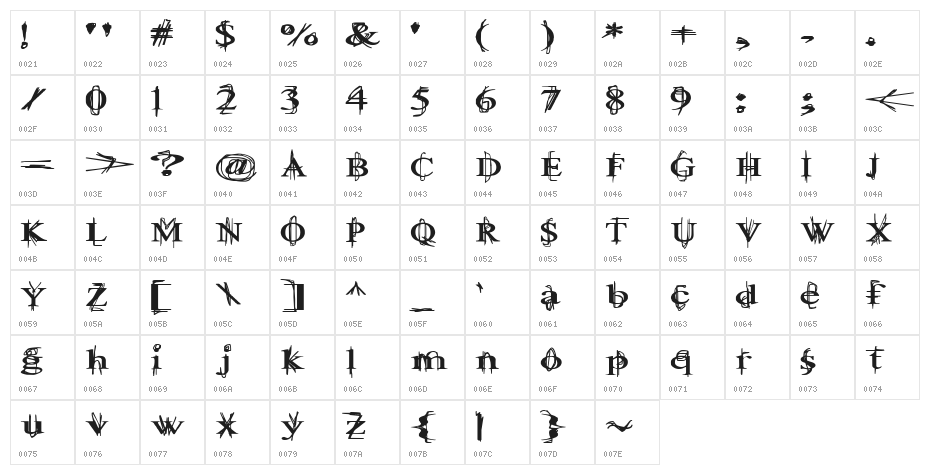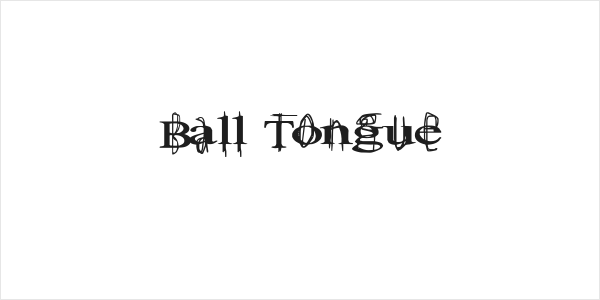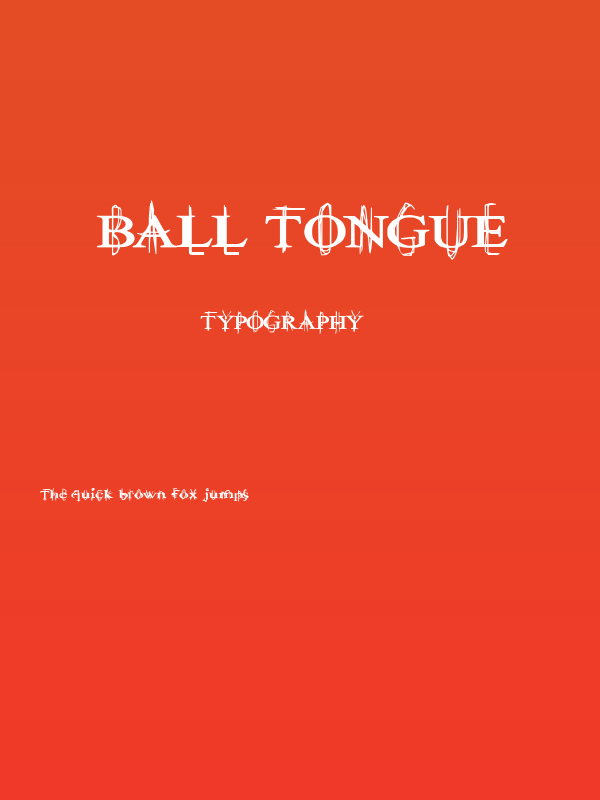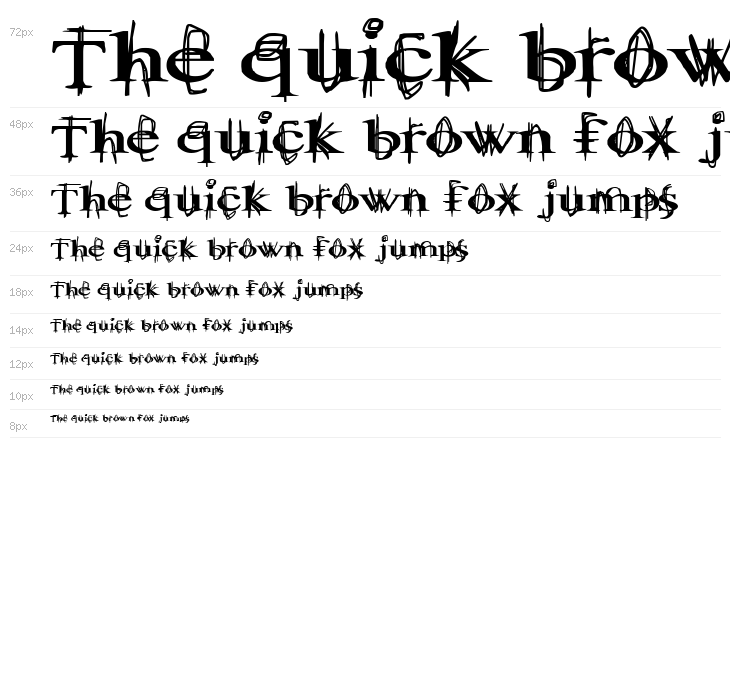
Ball Tongue Font
Ball Tongue Description
This font features a highly decorative and chaotic style, characterized by sharp, jagged edges and overlapping strokes that create a sense of movement and intensity. Each letter appears to be constructed with a series of intersecting lines and curves, giving it a unique, almost hand-drawn appearance. The uppercase and lowercase letters maintain this dynamic style, while the numbers and special characters follow suit with equally intricate designs. The overall aesthetic is bold and eye-catching, making it suitable for projects that require a strong visual impact.
| Use Case | Logos, Headlines |
| Proposed Projects | Ideal for album covers, posters, or any design needing a bold, edgy look. |